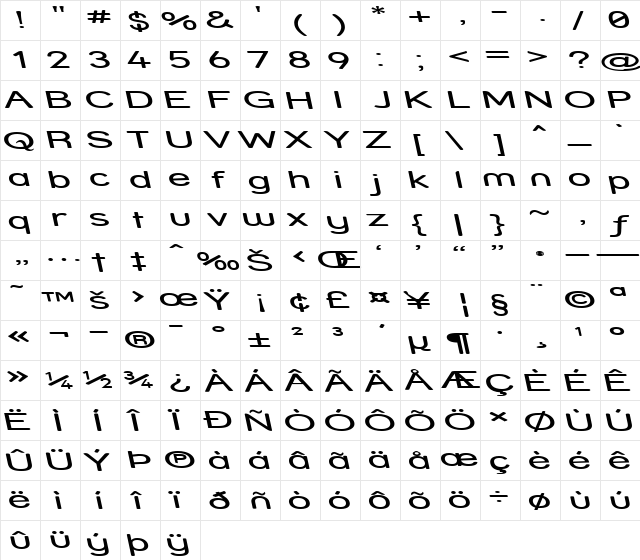
Street - Expanded Reverse Italic
| Designer | Graham Meade |
Design Context for Street - Expanded Reverse Typeface
Street - Expanded Reverse offers clean, dependable letterforms without strong stylistic allegiance, making it a practical choice for designers who need flexibility. Its italic angle brings a sense of urgency and motion to the letterforms.
Pro Tip: Use Street - Expanded Reverse for emphasis, pull quotes, and subheadings where its slanted energy can add rhythm to the layout.